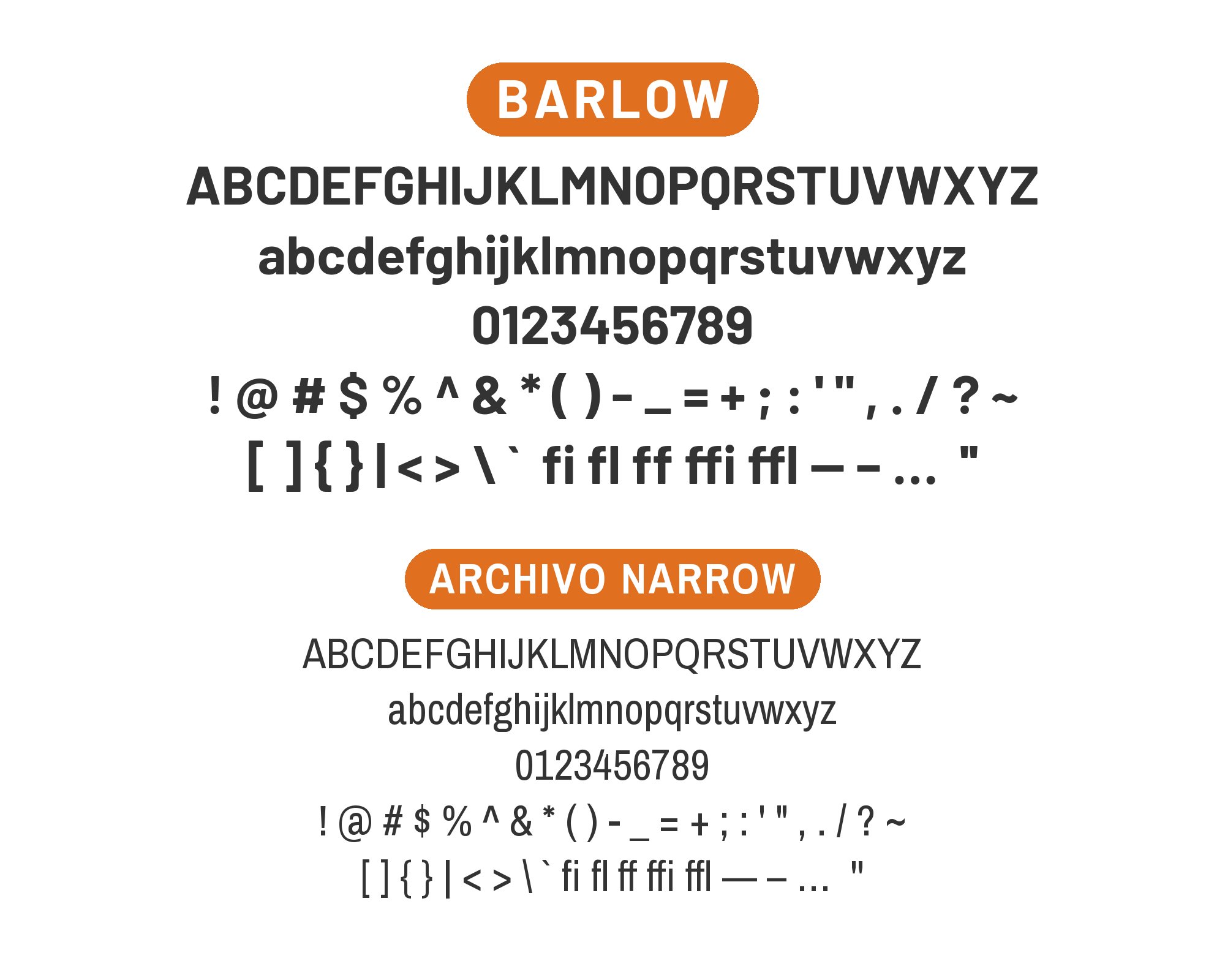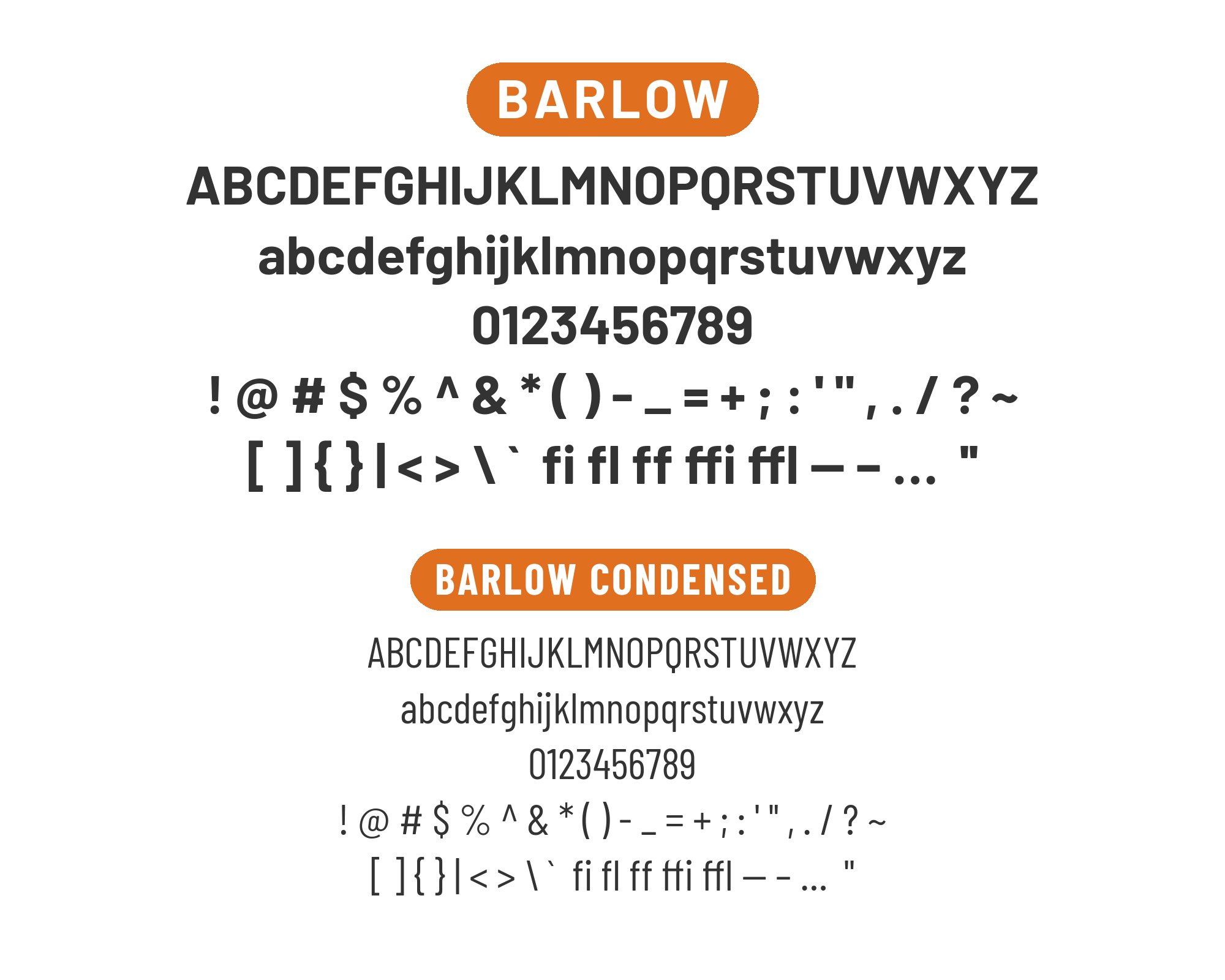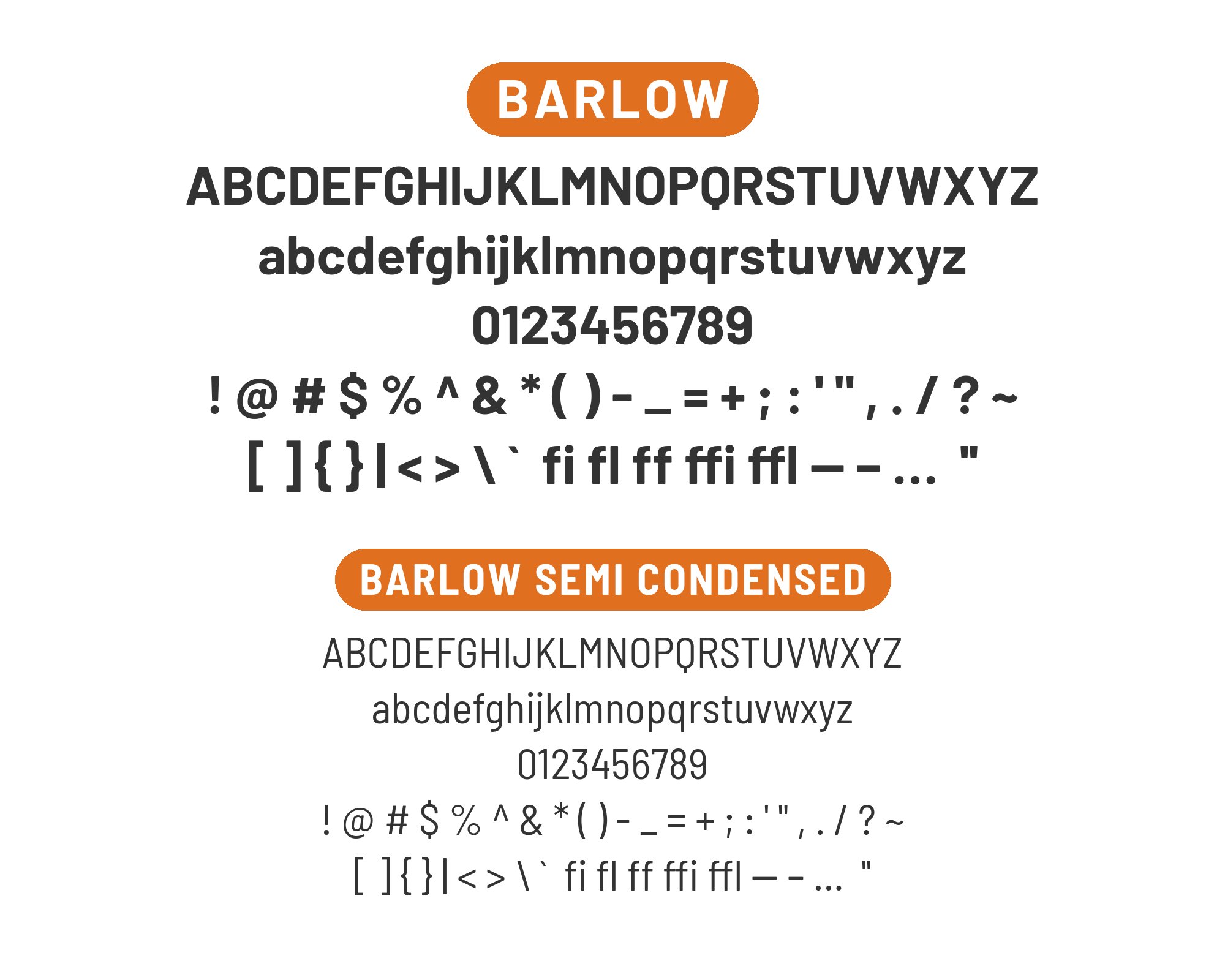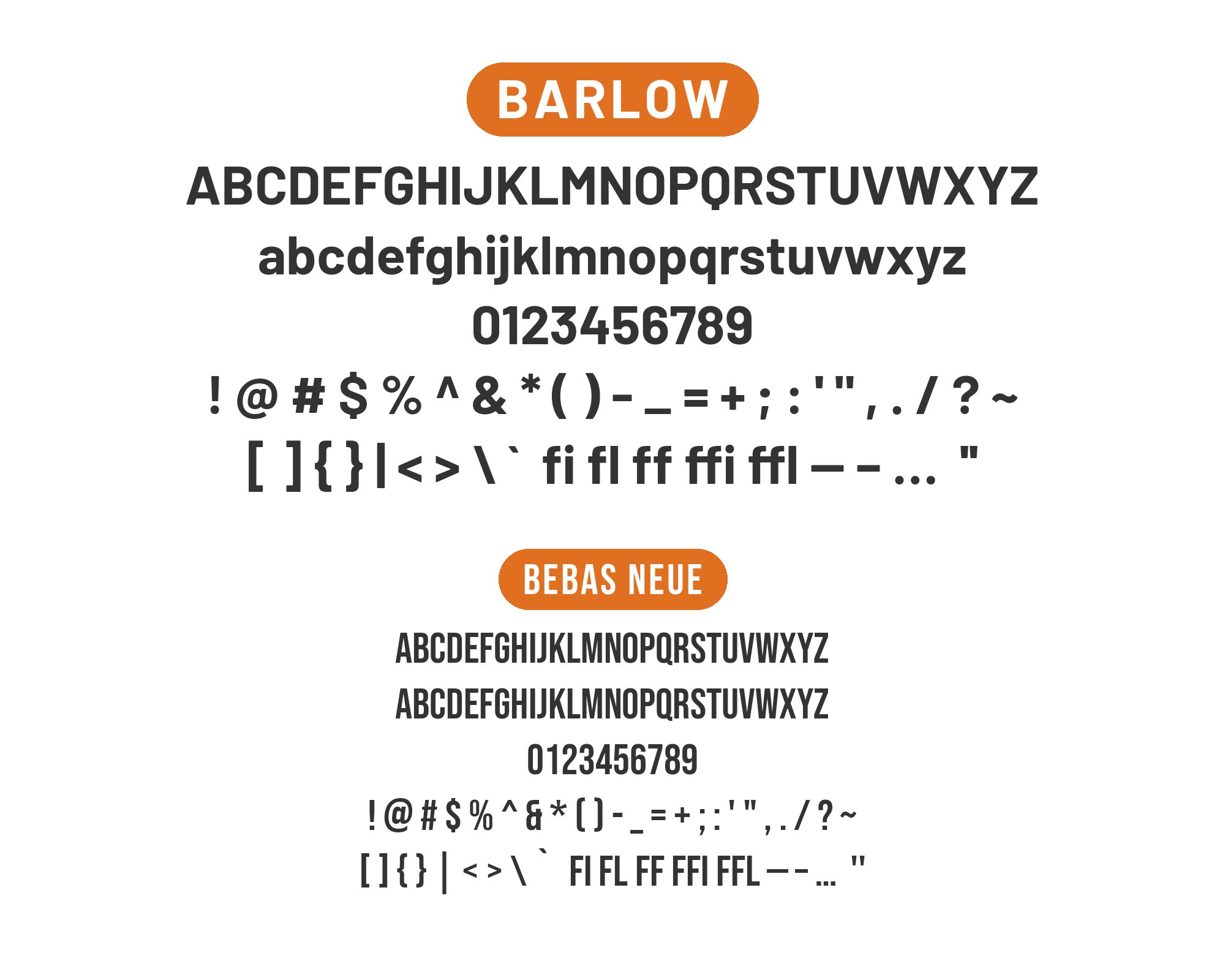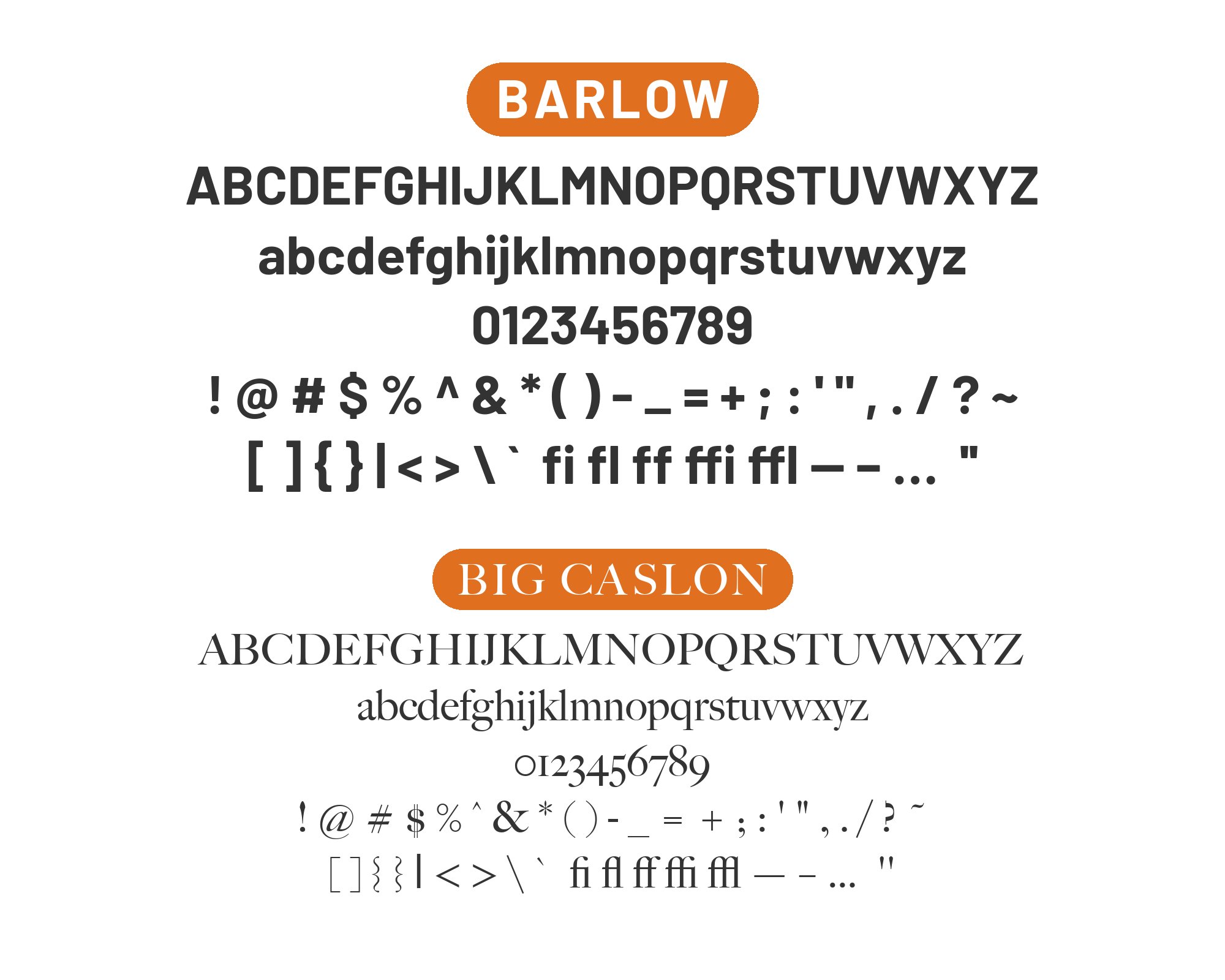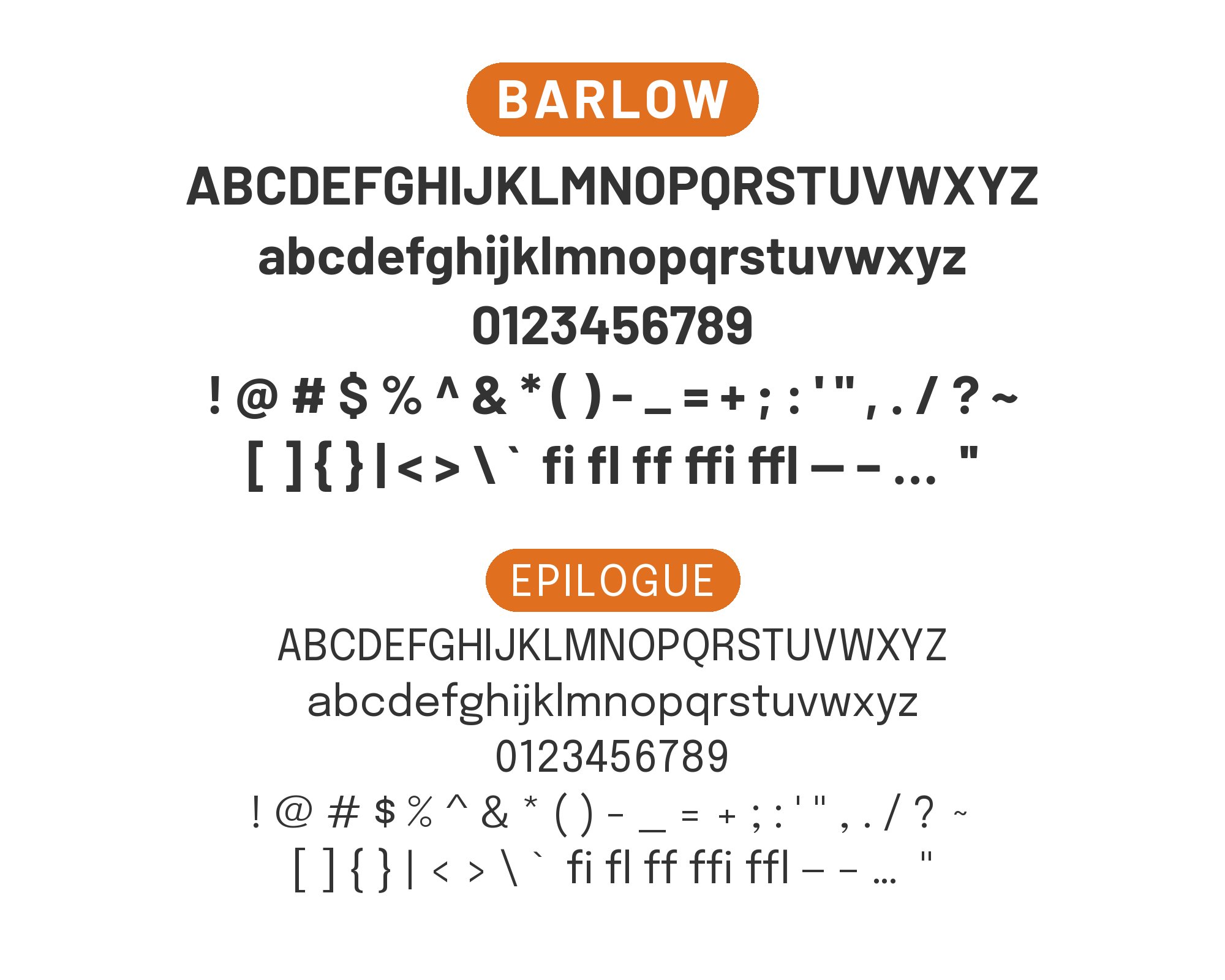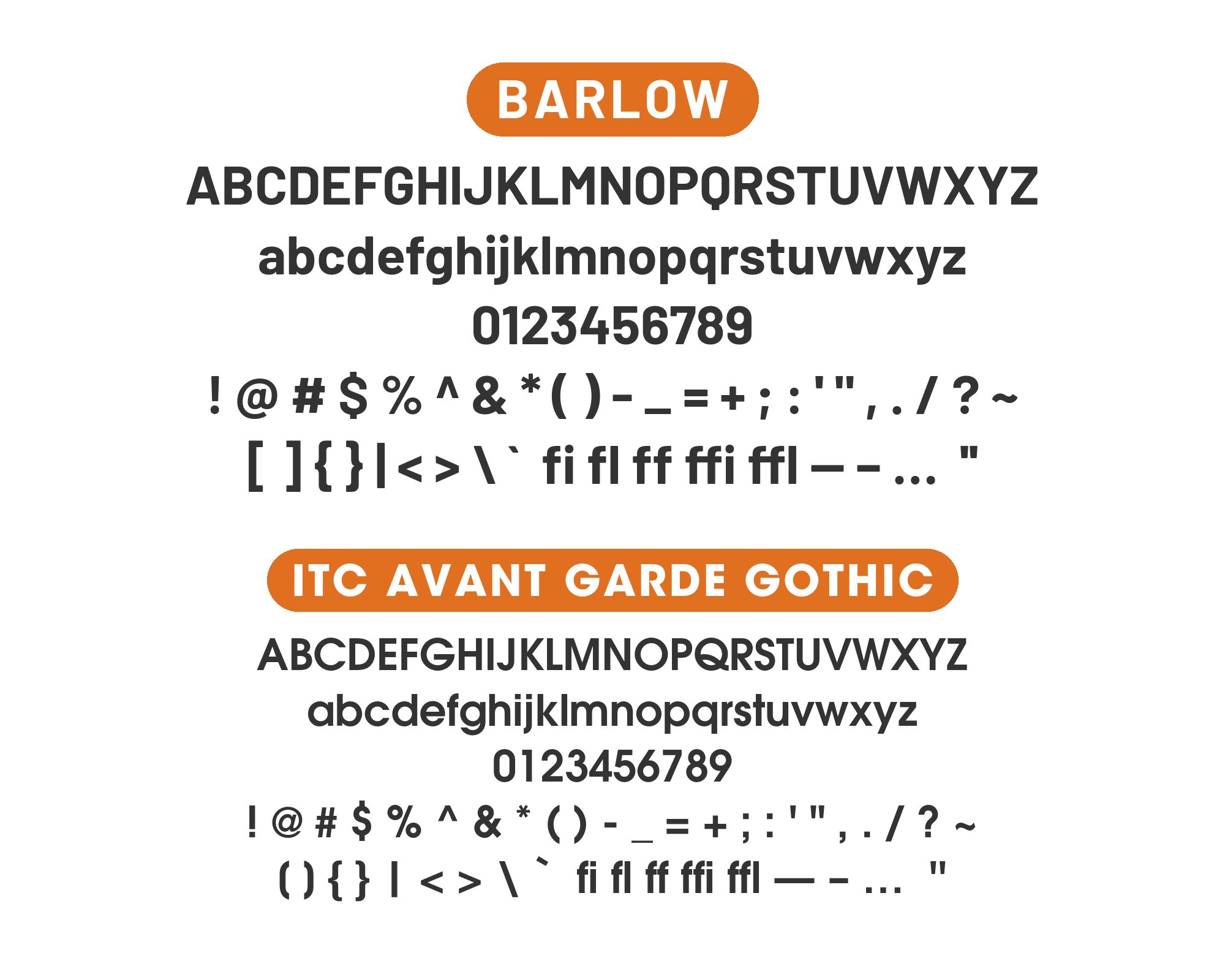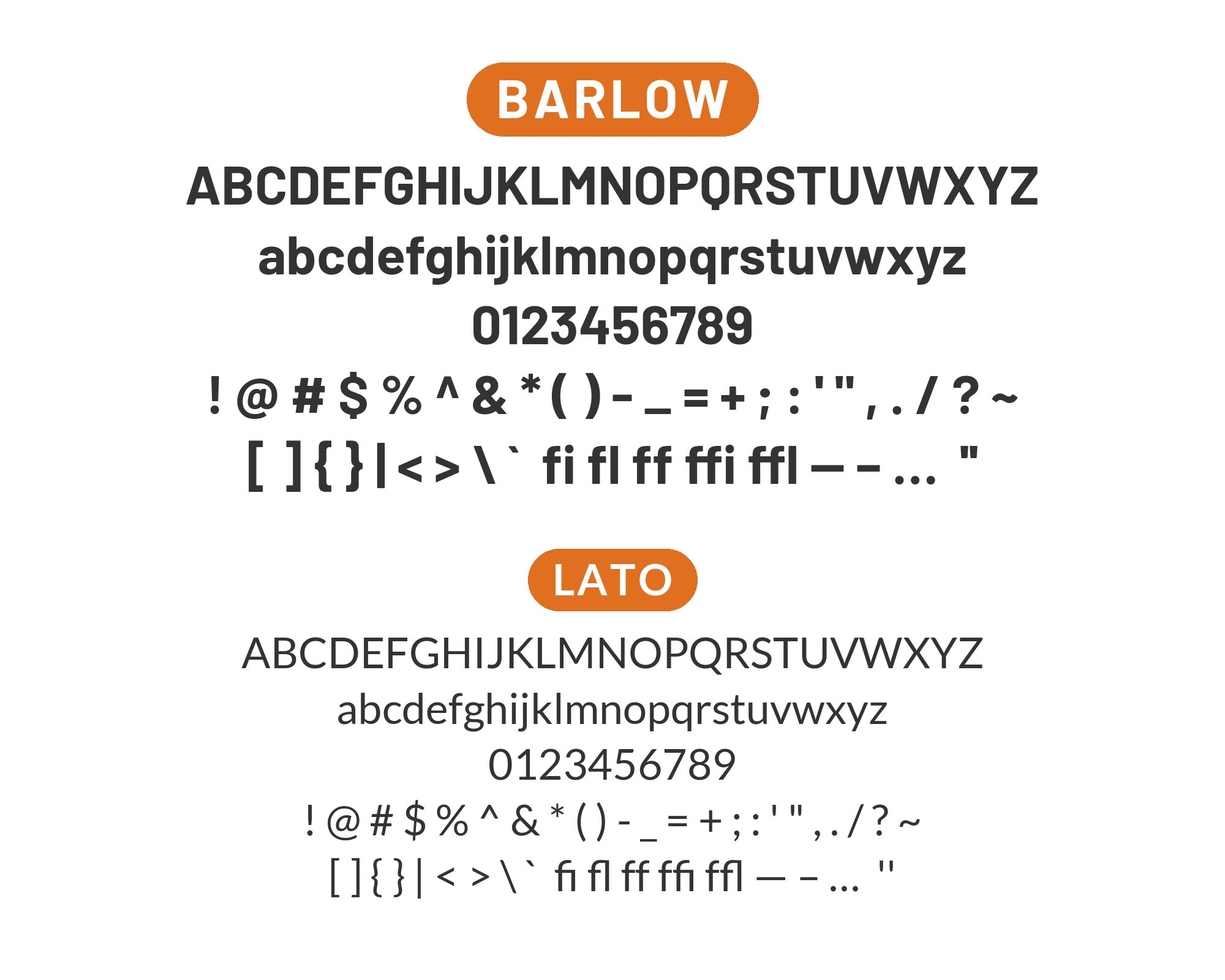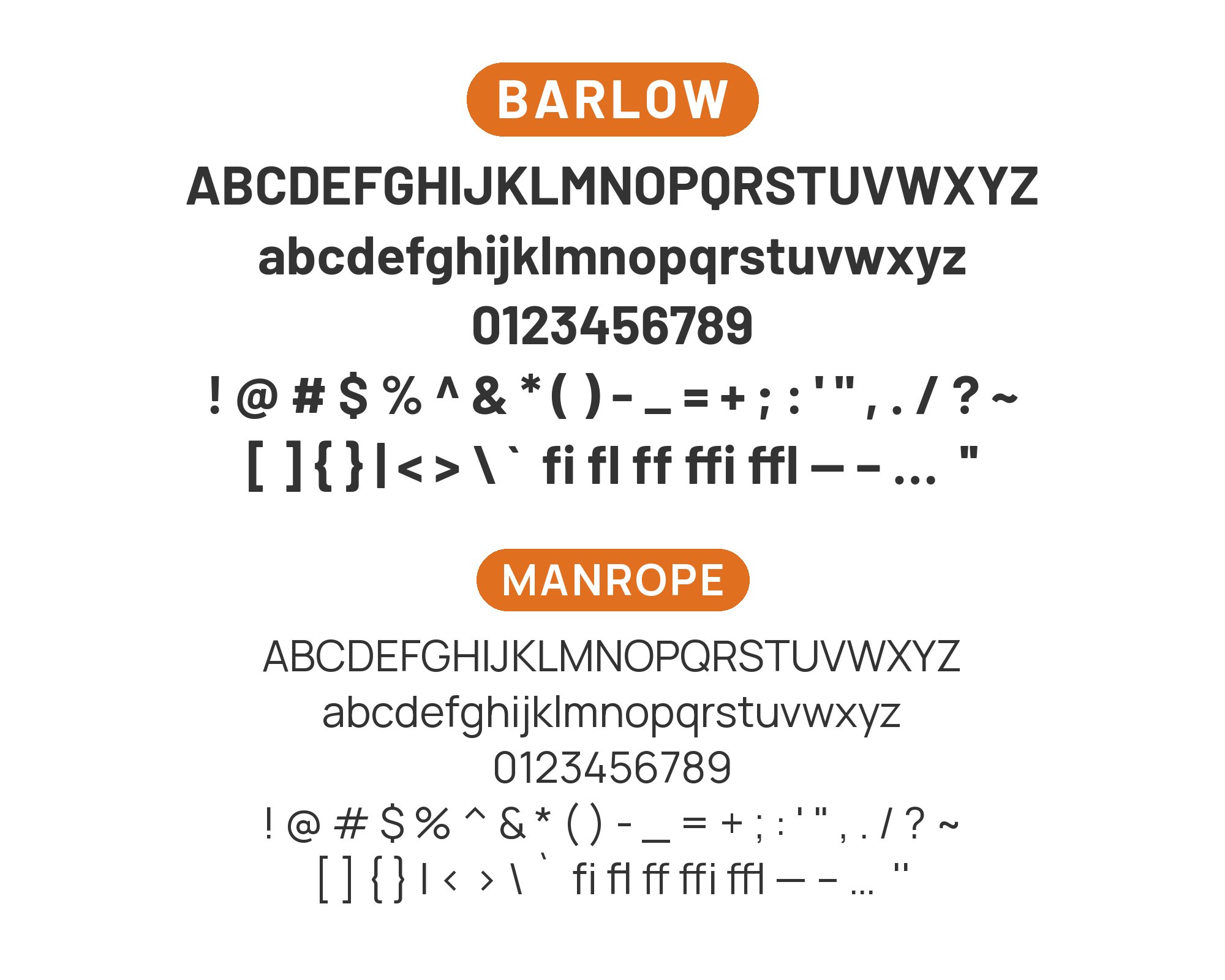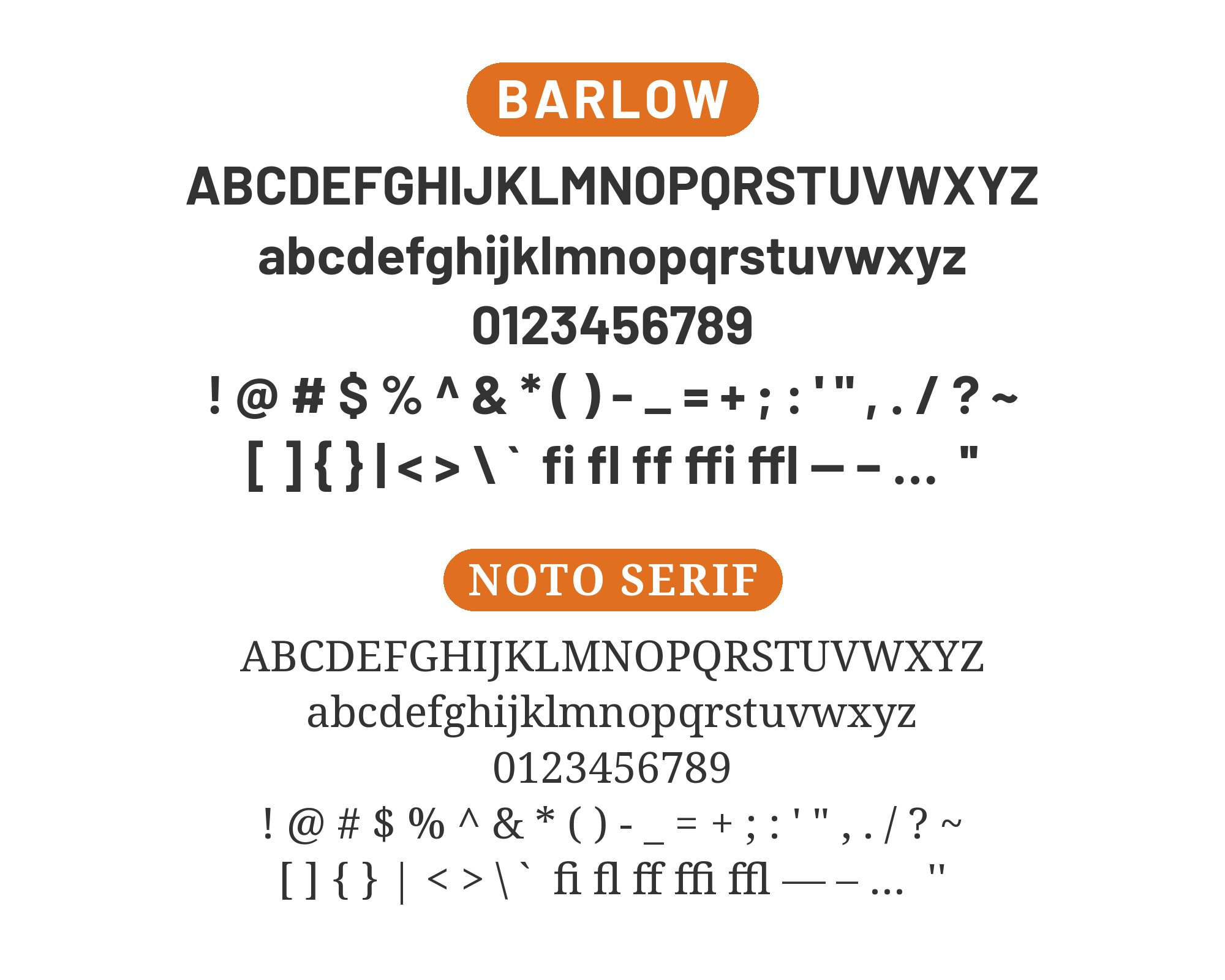
Barlow pairs great with Raleway, Big Caslon and Epilogue. All 15 pairings are shown below in real rendered specimens, with the reason each one works.
What fonts go with Barlow? Start with where the shapes came from. No fashion studio, no Swiss foundry: Jeremy Tribby built the face out of the lettering Californians read every day — the stamped plates on cars, the panels over the freeway, the numerals on a bus or a commuter train — and took the sharpness off it until the whole thing worked at every size a public system asks for.
Tribby drew the family in San Francisco and put it out in 2017 under the SIL Open Font License. The name is a tribute to John Perry Barlow, who co-founded the Electronic Frontier Foundation, wrote songs, and spent his life arguing for the information superhighway rather than the paved one. What ships is a superfamily of 54 styles: Normal, Semi Condensed and Condensed, nine weights in each width, italics throughout, plus a variable file that opens the weight and width axes to any value between the named cuts. The drawing holds a grotesk skeleton, rounds the terminals just enough to soften them, and keeps stroke contrast close to nil, so the face is engineered and approachable at the same time: open enough to read in paragraphs, tight enough in the condensed cuts for signage, even enough in color that an entire product interface can live inside the one family.
Pairing Barlow is therefore a choice about how much of that family to use, and how much foreign texture to add. The zero-friction answer is the width split: Barlow Condensed or Semi Condensed for headlines, normal Barlow for everything else, one skeleton throughout. Real-site co-usage points the other way — toward a second voice. Live sites put a more ornamental geometric sans, a high-contrast display serif, or another grotesque next to it. Here are 15 fonts that pair well with Barlow.
1. Raleway
Matt McInerney drew the original thin weight of Raleway; Pablo Impallari and Rodrigo Fuenzalida later expanded it into the full family now on Google Fonts. It is a geometric sans with taller proportions and more ornamental details than Barlow — the distinctive w, the single-story alternate a, the open apertures that read as fashion rather than infrastructure. That gap is why the pairing works: Barlow’s public-signage grotesk stays quiet and slightly narrow at text sizes, while Raleway takes the display line where its elegance actually registers. Typ.io records the combination live on aluxediamond.com, a site it tags as fashion, where the two faces reach a register Barlow would not reach on its own. Run Raleway Light or Regular for headlines and logotype, Barlow Regular for body and UI, and keep the two at clearly different sizes so the ornamental details do not compete with the reading text. Retail, beauty and lifestyle brands get a civic-plain body voice here under a more dressed-up masthead.
Find Out How2. Big Caslon
Matthew Carter designed Big Caslon for Carter & Cone as a revival of the Caslon foundry’s largest, most forceful display sizes — the cuts William Caslon’s text romans never quite matched, eccentric and high-contrast, unused in digital form until Carter redrew them. Those sharp thick–thin transitions are everything Barlow refuses to be. Barlow’s slightly rounded, low-contrast strokes hold even color at caption size; Big Caslon’s hairlines and heavy stems need display scale, where the contrast can breathe. Typ.io records the pair live on glaredb.com, a technical product site that puts the display serif against Barlow’s quieter sans. Give Big Caslon the title, the pull quote, the poster line; keep Barlow for navigation, labels and any paragraph that has to survive a phone screen. Editorial brands, cultural institutions and tech products that want a headline with historical punch rather than another geometric sans should start here. Print a proof at the intended size — Big Caslon’s fine strokes vanish if you treat it as a text face.
3. Barlow Condensed
Barlow Condensed is not a partner from another foundry. It is the narrow width of Tribby’s own superfamily: same grotesk skeleton, same low contrast, same nine weights and italics, drawn on a tighter set width so more letters fit the line. Hierarchy comes from proportion rather than from a second design language, which is the most coherent system Barlow can offer. Google Fonts publishes Barlow Condensed as part of the same superfamily as Barlow, and the logic is the same one used on highway signs and transit maps — condensed for the name of the place, normal width for the paragraph that explains it. Use Condensed Bold or ExtraBold for headlines, section titles and navigation; leave Barlow Regular for body copy, forms and captions. The pairing suits dashboards, news sites, sports and any layout that needs a lot of words in a short horizontal space. Because both cuts share terminals and x-height, they sit at the same apparent size without optical correction — match the weight, not just the point size, and the system reads as one voice speaking at two widths.
Find Out How4. Barlow Semi Condensed
Barlow Semi Condensed is the in-between width: not as poster-tight as Condensed, not as open as the normal cut, still the same slightly rounded grotesk. Google Fonts publishes it as the third width of the Barlow superfamily. Reach for Semi Condensed when full Condensed feels like a tabloid headline and normal Barlow feels too wide for the masthead — product names, card titles, mobile headers, the places where you want compression without shouting. Keep the normal width for paragraphs, and let Semi Condensed take subheads as well as the primary title if the page has several levels of display type. The three-width family is the point: Normal, Semi Condensed and Condensed can share a single product without introducing a foreign face, which is exactly the civic-system logic Tribby started from. For brands that already committed to Barlow and do not want a serif, this is the pairing that stays inside the license and inside the skeleton.
5. Epilogue
Tyler Finck designed Epilogue for Etcetera Type Co in Ithaca, New York, and released it as a variable sans with nine weights, upright and italic, on Google Fonts. It has enough quirk in its details — a friendly, slightly irregular sans rather than a strict grotesk — to hold a headline while Barlow’s narrower, quieter footprint carries the paragraphs underneath. Leadpages, in a pairing list by Creative Director Staci Carpenter, publishes Epilogue + Barlow as a tested combination: Epilogue’s variable nature and quirks give it a friendly personality, which contrasts with Barlow’s narrow footprint. Set Epilogue Semibold or Bold for headlines and short brand lines; let Barlow Regular do the reading, the form labels, the footer. The pairing suits consumer products, education and any brand that wants a little personality in the title without leaving the open-source sans world. Because both families are variable or multi-weight, you can tune the contrast in weight as well as in width — a light Epilogue over medium Barlow is a different page from black Epilogue over light Barlow.
6. Bebas Neue
Ryoichi Tsunekawa designed Bebas Neue as a free condensed display face; the Google Fonts version ships one regular weight in capitals, with no italic. That construction makes the role split unmistakable: Bebas Neue can only ever be the headline, and Barlow has to do every other job — mixed-case sentences, UI, captions, the reading. UtilityCove curates Bebas Neue + Barlow among its pairing-tool combinations, putting the industrial condensed caps over Barlow’s more regular reading voice. Use Bebas Neue for kickers, hero statements, event titles and any line that should feel like a poster; set Barlow Regular or Medium underneath at 16–18px for the explanation. Media brands, sports, music and campaigns need impact on first glance and a calm paragraph after; that is this pair’s whole job. Track Bebas Neue slightly tighter at large sizes and slightly looser at small ones so the condensed rhythm does not pinch; never ask it to set a sentence.
7. Noto Serif
Steve Matteson designed Noto Serif as the serif companion in Google’s Noto superfamily, drawing on his earlier Droid Serif so Latin, Greek and Cyrillic sit on one text skeleton. Fonts In Use records it with Barlow in Bloober Team’s Silent Hill 2 Remake (2024): Noto Serif is the primary UI serif, Barlow the secondary face on button prompts and credits. That is a real production split, not a listicle. Noto Serif’s moderate contrast and old-style color do the reading and menu work; Barlow’s low-contrast grotesk stays in the chrome where a serif would look precious. Games, product UI and any interface that needs a literary text face plus a civic sans should start here. Keep Noto Serif for sentences; keep Barlow for labels that have to stay even at small sizes.